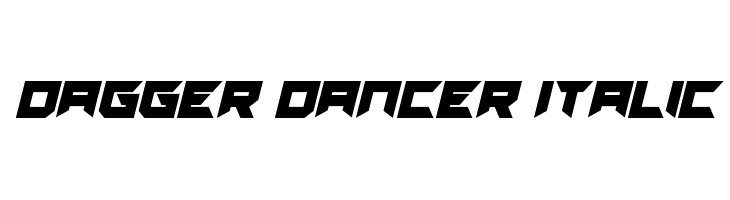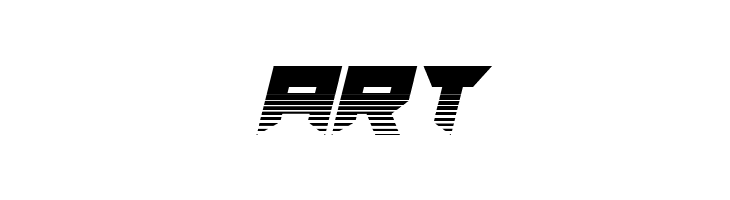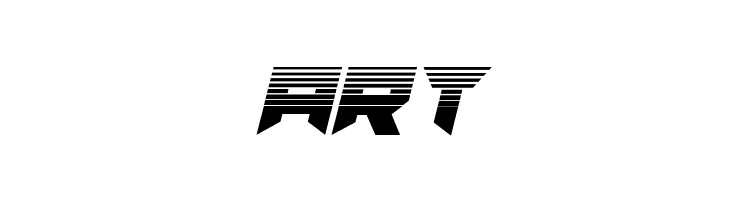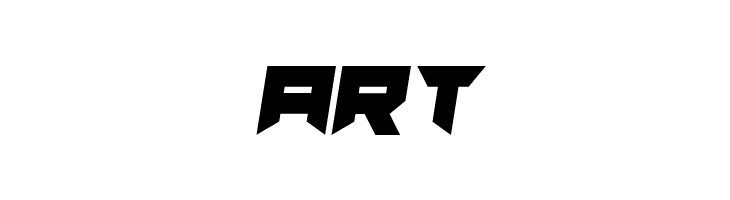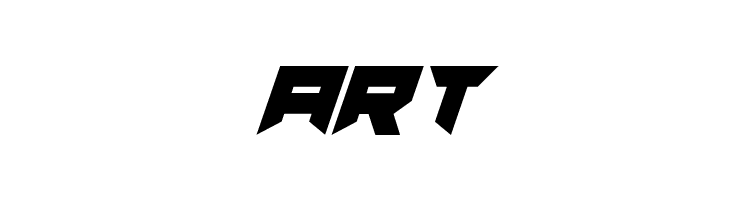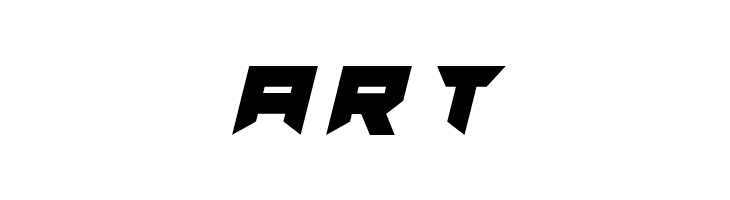
• Dagger Dancer Halftone Italic
A bold, italicized font with a futuristic halftone effect and sharp geometric angles.
• Dagger Dancer Italic
A bold, angular, and italicized font with a futuristic design.
• Dagger Dancer Laser Italic
A bold, angular font with a futuristic and dynamic design.
• Dagger Dancer Semi-Italic
A bold, angular font with a dynamic, semi-italic style.
• Dagger Dancer Super-Italic
A bold, angular, and italicized font with a futuristic and edgy design.
• Dagger Dancer Title Italic
A bold, angular, and italicized font with a dynamic, modern style.
• Dagger Dancer Twotone Italic
A bold, futuristic italic font with a two-tone effect and sharp geometric shapes.
• Dahlia Regictik Italic
An elegant italic serif font with smooth curves and sharp serifs.
• Dahliakeys Italic
An elegant, flowing script font with intricate, cursive strokes and high contrast.
• dahliaScript-Italic
An elegant script font with flowing, cursive letterforms and high contrast.